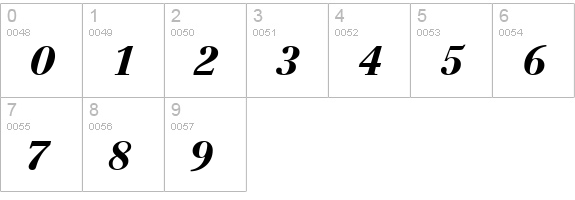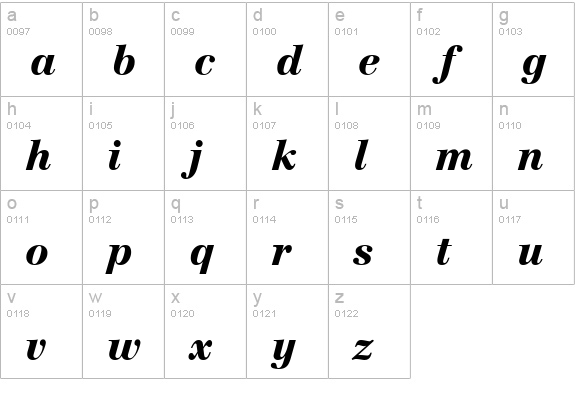
Century Reprise Black SSi Black Italic Font Details
Century Reprise Black SSi Black Italic is a maximum-weight, dramatic, italic variant in the Century typeface family \xE2\x80\x94 well suited to maximum-impact headlines, posters, and packaging.
Century Reprise Black SSi Black Italic font is a sleek and modern typeface that exudes elegance and sophistication. Its bold and italic design adds a touch of flair to any project, making it perfect for headlines, titles, and other eye-catching text. The sharp contrast between the thick strokes and slanted angles creates a dynamic and powerful visual impact. The best part is that Century Reprise Black SSi Black Italic font is available for free download at FontsMarket.com. Whether you're a designer looking to enhance your creations or a writer seeking a unique font for your work, this font is a versatile and stylish choice that won't cost you a penny. Don't miss out on the opportunity to elevate your designs with this striking typeface – download Century Reprise Black SSi Black Italic font today and make a bold statement!